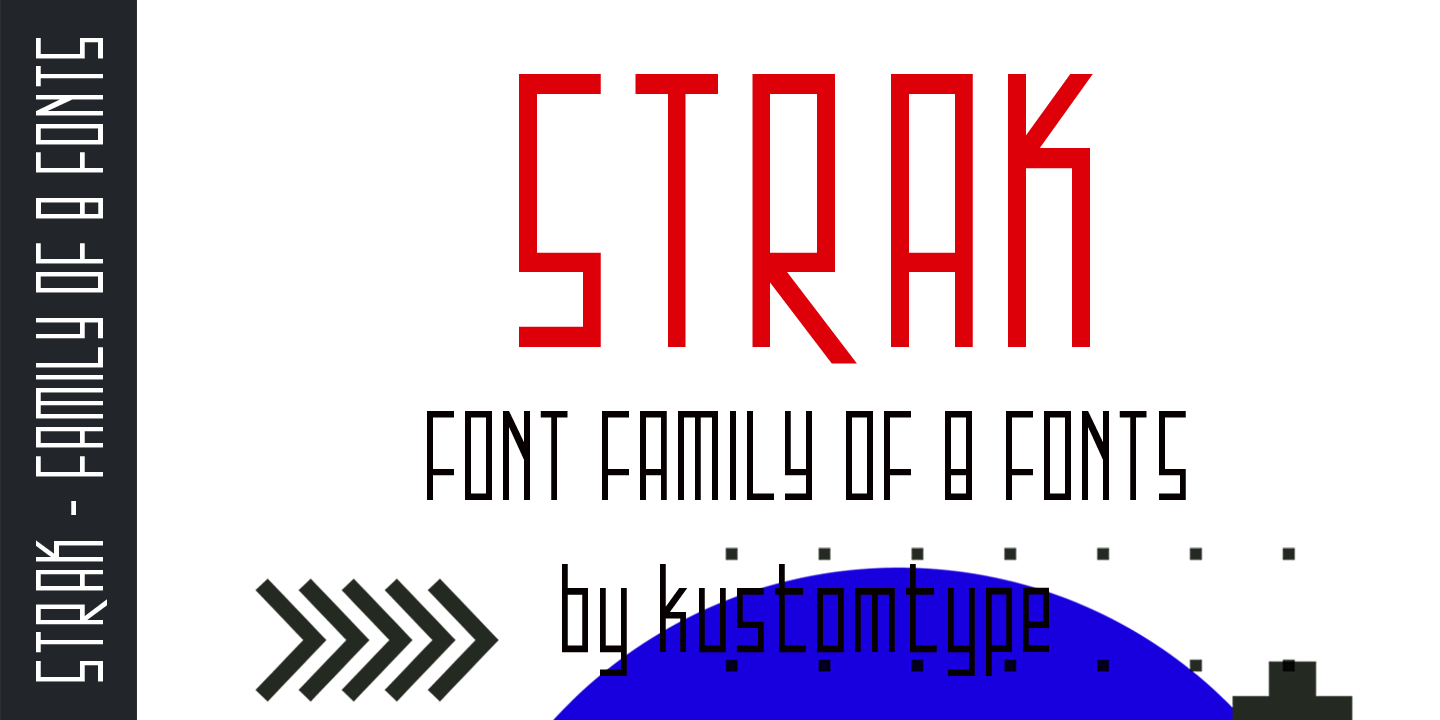
Strak Font is perfect for minimalist architectural firms, contemporary design studios, modern tech interfaces, sleek product branding, cutting-edge software applications, precision engineering companies, clean corporate communications, advanced technology presentations, streamlined user interfaces, modern industrial design, progressive business materials, and sophisticated digital experiences.
This font is exciting because it embodies the precision and clean efficiency of contemporary Dutch design philosophy, featuring sharply defined letterforms that communicate with the same disciplined clarity and purposeful restraint found in the Netherlands' legendary tradition of functional design where every element serves a purpose and unnecessary decoration is eliminated in favor of pure, intelligent functionality. The rigorously geometric character design reflects both the mathematical precision of modern engineering and the aesthetic confidence that comes from knowing exactly what to include and what to eliminate, creating typography that feels both intellectually rigorous and visually satisfying. Each letter demonstrates the kind of disciplined excellence and thoughtful reduction that transforms ordinary text into statements of design mastery and functional beauty.
The Strak Font family includes multiple weights from ultra-light to bold, with corresponding italic styles, condensed variants for space-efficient applications, and comprehensive character sets supporting international design requirements. Advanced versions feature enhanced OpenType capabilities, optimized screen rendering for digital platforms, precision spacing calibrated for maximum legibility, and carefully refined details that maintain visual consistency across all sizes and applications.
Whether you're developing contemporary brand identities, creating modern digital interfaces, or designing precision-focused marketing materials, Strak Font Free Download provides the clean efficiency and design intelligence your project needs to communicate with the same clarity and purposeful restraint that defines the best contemporary design practice. This typeface transforms ordinary text into refined communications that honor both functional necessity and aesthetic excellence. The font's precise character makes it ideal for organizations that value clean design and intelligent communication. Modern designers and tech-focused businesses will appreciate how this font brings authentic Dutch design precision to their work with its genuinely disciplined and functionally beautiful character that defines contemporary design excellence.